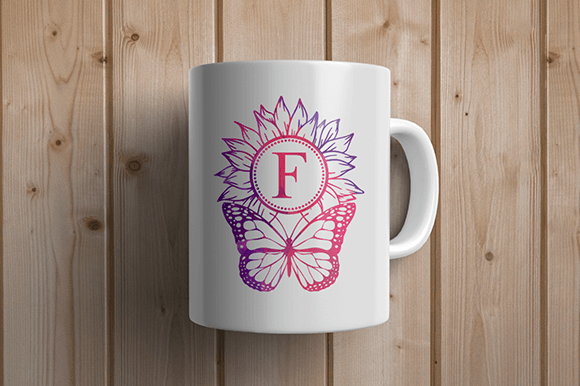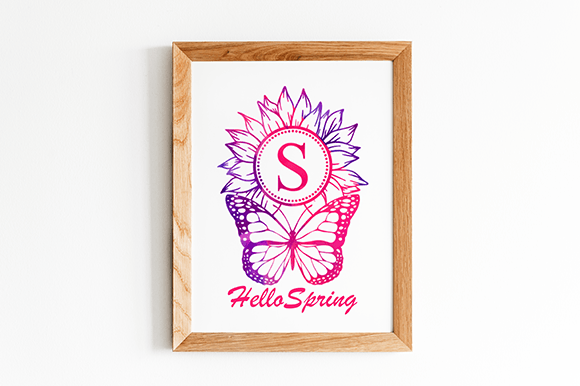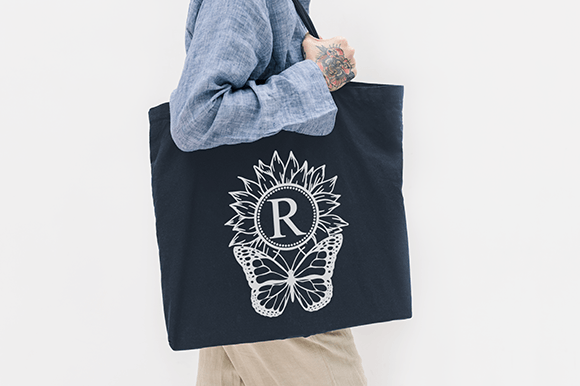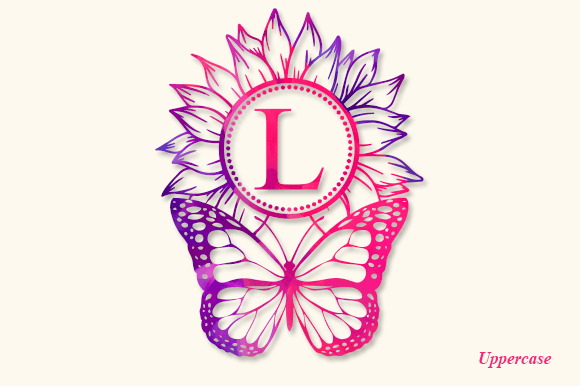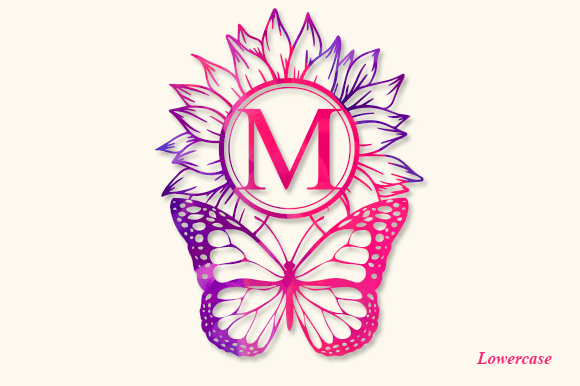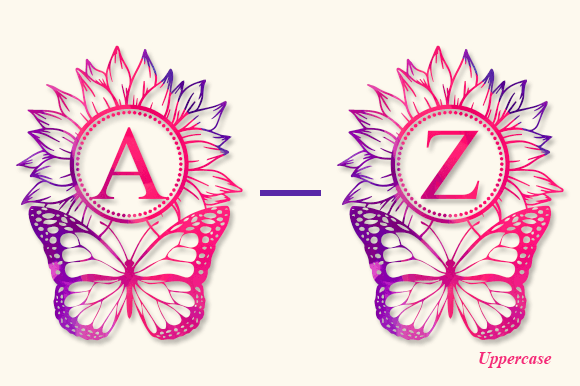
Find Your Creative Wings with the Butterfly Sunflower Monogram Font
Do you remember the moment when you stumbled upon a beautiful font that made your heart skip a beat? For many designers, this moment is what sparks a new project, a new idea, or a new creation. And for those who adore elegance and whimsy, the Butterfly Sunflower Monogram Font is about to become their new obsession.
This gorgeous decorative font is more than just a pretty face – it’s a tool that can help you create stunning visual stories. Whether you’re crafting wedding invitations, designing social media posts, or creating beautiful stationary art, the Butterfly Sunflower Monogram Font is the perfect companion to bring your vision to life. Its authentic feel and lovely ornaments make it a valuable asset for designers who want to add a touch of sophistication and charm to their work.
Key Features of Butterfly Sunflower Monogram Font
- Unique Characteristics: The Butterfly Sunflower Monogram Font features a whimsical, hand-drawn design with intricate details and ornate flourishes, perfect for adding a touch of elegance to your designs.
- Monogram Capabilities: This font is specifically designed to create custom monograms, making it an ideal choice for wedding invitations, stationery, and other personalized items.
- Legibility: Despite its intricate design, the font remains highly legible, ensuring that your text remains clear and easy to read.
Review: Butterfly Sunflower Monogram Font
Overall, I think the Butterfly Sunflower Monogram Font has a lot of charm and whimsy to it. ✨ It’s perfect for adding a touch of personality to your designs, especially for wedding invitations, birthday parties, or any other celebration that needs a little extra flair. The font is playful and elegant at the same time, which makes it a great choice for designers who want to add a bit of sophistication to their work.
One of the things I like most about this font is its versatility. ✨ It can be used for a variety of purposes, from formal to casual, and it always looks great. The font is also highly customizable, which is a big plus for designers who like to experiment with different styles and layouts.
- ⚠️ The font may not be suitable for all types of projects, such as business reports or formal documents, due to its playful nature.
- ⚠️ The font may not be as legible at smaller font sizes, which can make it difficult to read in certain contexts.
Overall, I think the Butterfly Sunflower Monogram Font is a great addition to any designer’s toolkit. While it may have some limitations, its unique charm and versatility make it a worthwhile choice for designers who want to add a bit of personality to their work.
Getting the Most Out of the Font
To get the most out of the Butterfly Sunflower Monogram Font, use it in combination with other design elements, such as floral patterns and bright colors.
Experiment with different font sizes and styles to create a unique and eye-catching design.
The Butterfly Sunflower Monogram Font is ideal for:
Floral-themed designs and branding
Personalized gifts and stationery